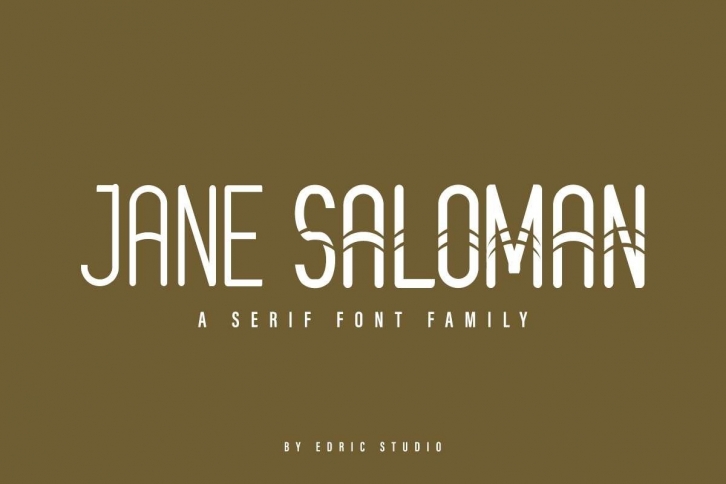
Jane Saloman is a beautiful font that was designed by EdricStudio. It's a great choice for designers and creatives who need such a font. It was released on July 7, 2020 and the file size is 3.53 MB. Jane Saloman may give a more youthful, expressive and casual look to your project. It is a very beautiful, refined, elegant, and high-quality font.